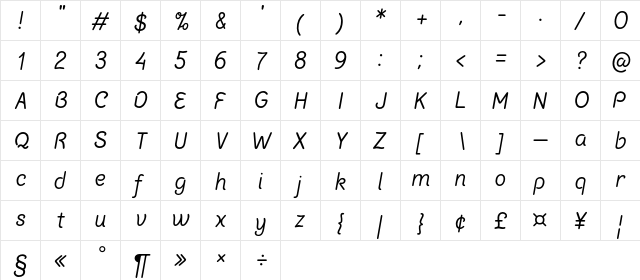
Chalk Marks Italic
Design Context for Chalk Marks Typeface
Chalk Marks offers clean, dependable letterforms without strong stylistic allegiance, making it a practical choice for designers who need flexibility. The dynamic lean of this cut emphasises speed and emphasis in any layout.
Pro Tip: Use Chalk Marks for emphasis, pull quotes, and subheadings where its slanted energy can add rhythm to the layout.